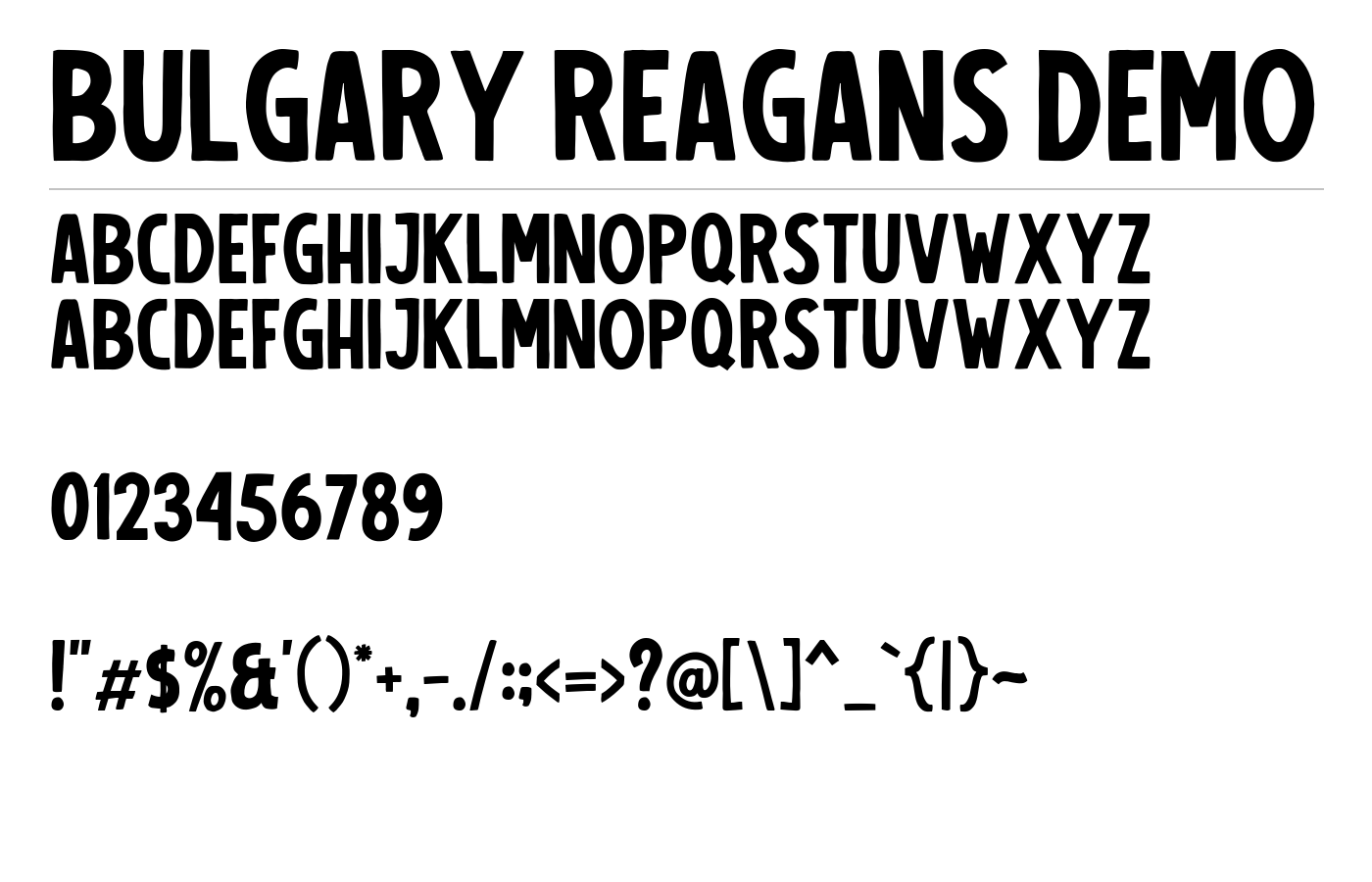
Bulgary Reagans Demo is a bold, condensed sans serif font with a playful and slightly quirky character. Its thick strokes and tight spacing create a strong visual impact while its irregular, hand-drawn feel adds charm and approachability, making it great for eye-catching headlines, posters, and casual branding. This font works well where a friendly yet confident tone is needed, such as in creative projects or informal editorial designs.
Bulgary Reagans Demo Font
About Bulgary Reagans Demo Font